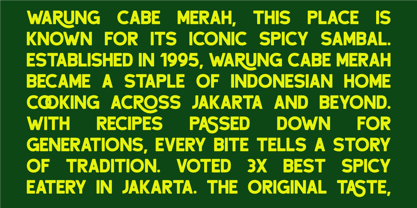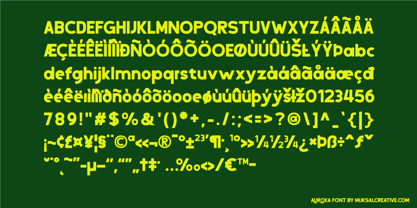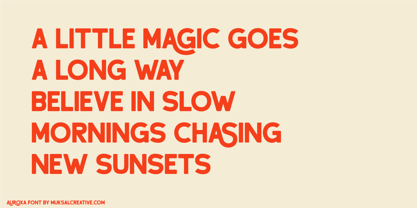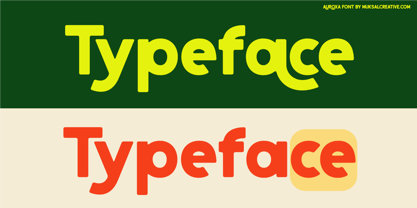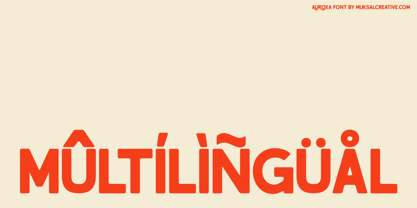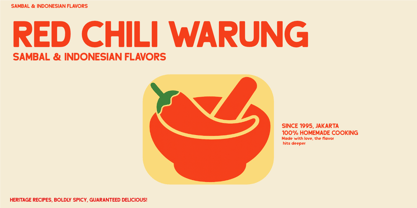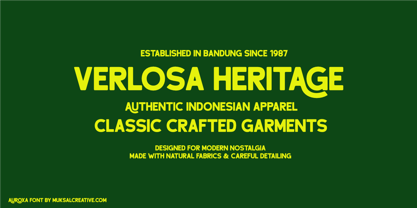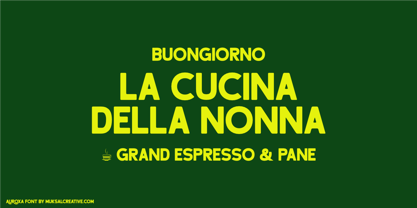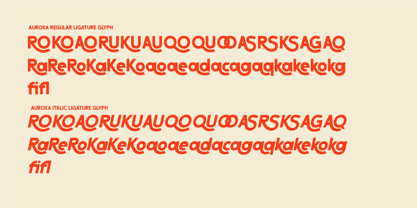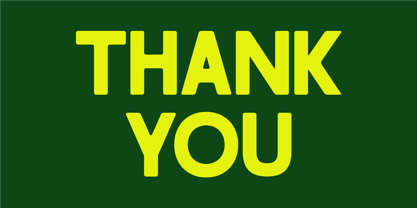
Auroxa
The Auroxa Font Family was designed by Muksalmina and published by Muksal Creatives. Auroxa contains 2 styles and family package options. More about this family
Auroxa is a bold retro-modern display font that merges vintage aesthetics with contemporary charm. Its confident curves, unique ligatures, and stylized forms make it perfect for branding that seeks character and impact.
Inspired by vintage signage, classic product packaging, and timeless typography from the mid-20th century, Auroxa delivers nostalgic flair while maintaining a strong, modern voice. It’s ideal for use in fashion labels, café menus, retro posters, editorial titles, product packaging, and creative logos.